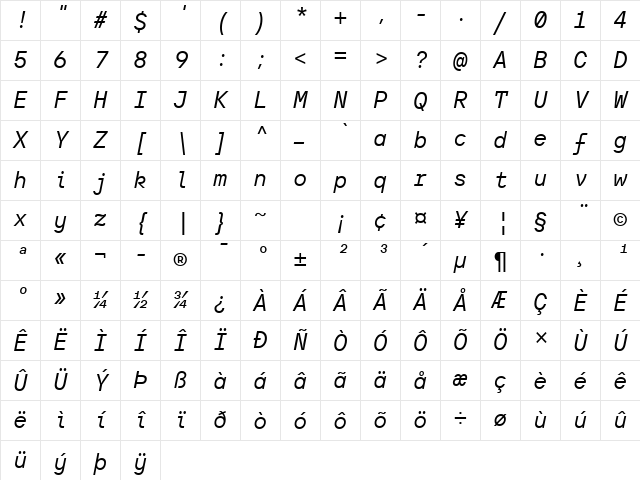
Complete TT Interphases Pro Mono Trl Italic glyph index. Displaying only characters natively supported by TT Interphases Pro Mono Trl Italic font.
TT Interphases Pro Mono Trl uses fixed-width spacing throughout, giving it the structured, systematic character associated with coding environments and technical documentation. The slanted form adds forward momentum and visual energy.
Pro Tip: Use TT Interphases Pro Mono Trl with slightly increased line-height for extended reading - fixed-width spacing can feel dense in longer passages without extra breathing room.